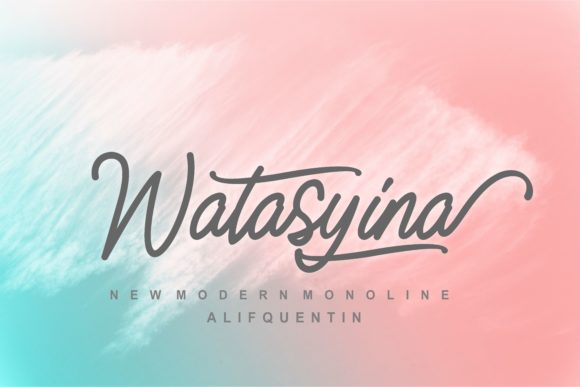
Watasyina Font
About Watasyina Font
Watasyina is a stunning and bold handwritten font, full of authenticity. It will turn any design project into a stand out!